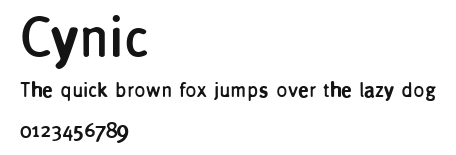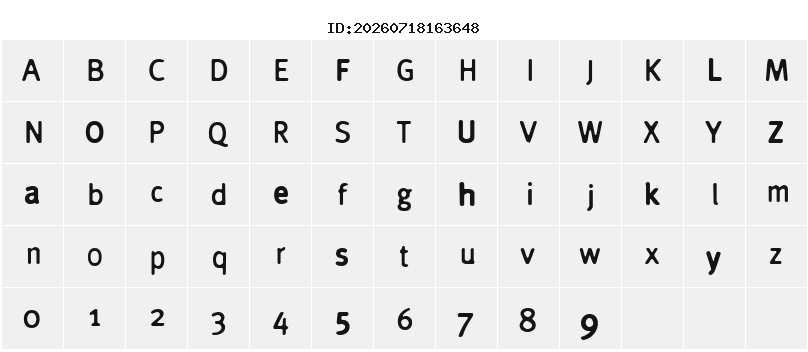
• Font Name: Cynic
About Cynic.ttf
Cynic.ttf is a modern, elegant sans-serif font designed for ultimate readability and visual harmony. Perfect for branding, headlines, web design, and print materials.